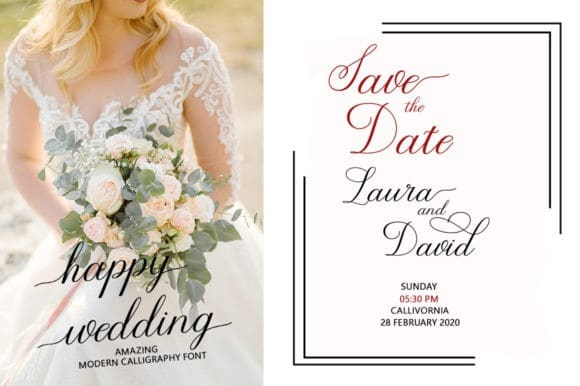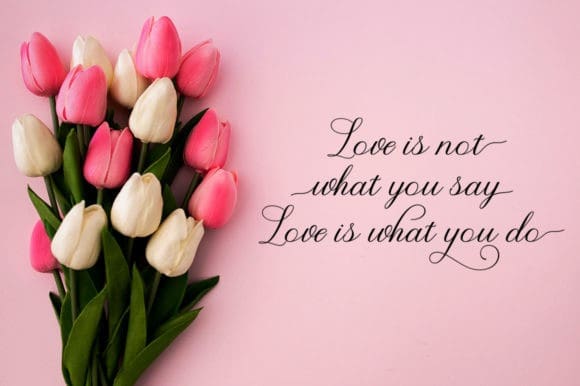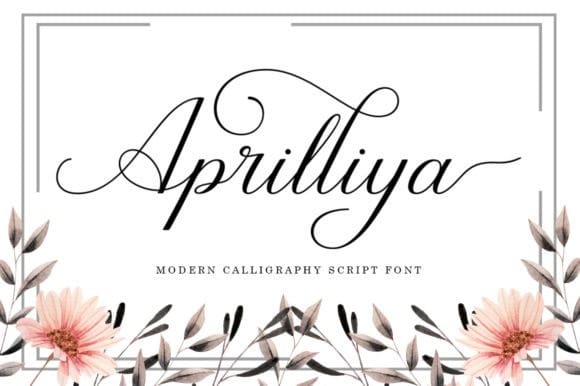
Aprilliya Font
Aprilliya Font is a unique script font, very suitable for weddings, media, book covers, greeting cards, logos, branding, business cards and certificates, even for any design work that requires a classic, formal, or luxurious look.